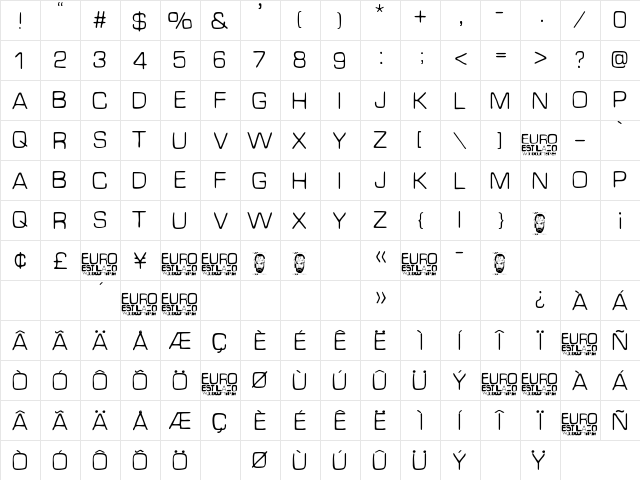
Euro Estilazo Regular
| Designer | Woodcutter Manero |
Design Context for Euro Estilazo Typeface
Euro Estilazo offers clean, dependable letterforms without strong stylistic allegiance, making it a practical choice for designers who need flexibility.